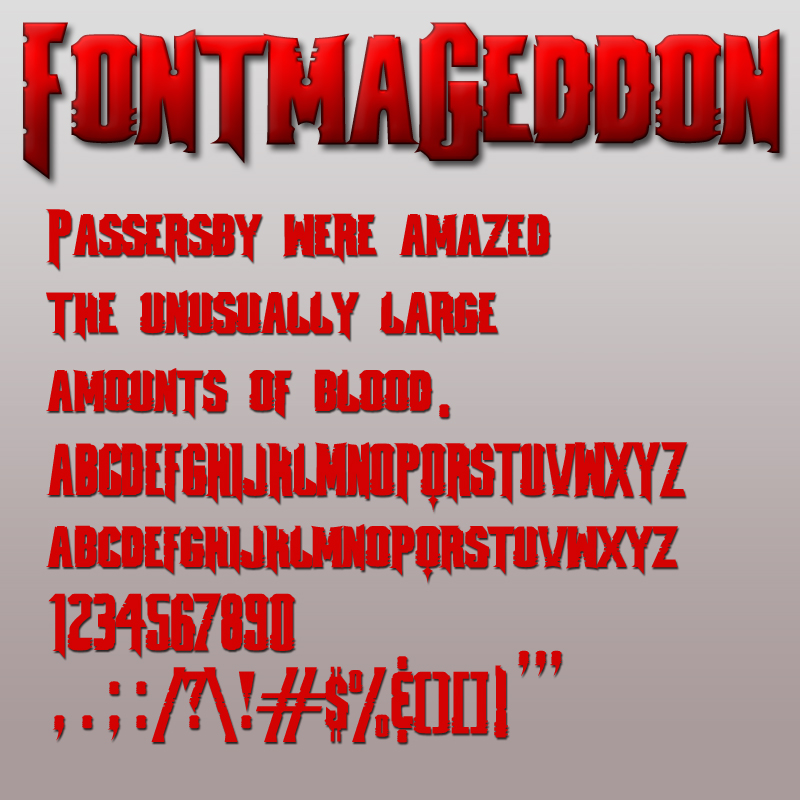
Font name: | Fontmageddon |
Author: | Jeff Bensch |
Note by Jeff Bensch | |
FontmaGeddon! BAM! In celebration of the upcoming Carmageddon: Reincarnation I present to you...a hand-made font in the likeness of their logo. No animals or children were harmed during it's creation. ..and I'll never turn down a donation ;D |